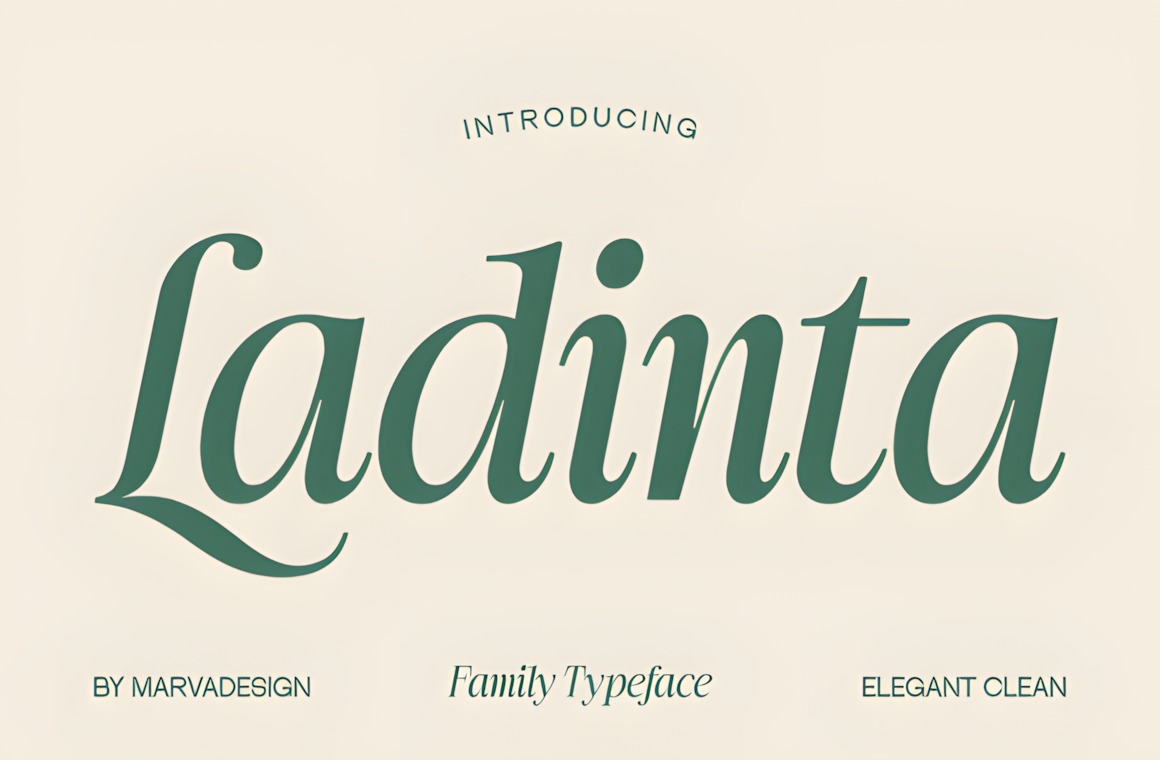
Choosing the perfect font can elevate your brand’s sophistication, whether for luxury packaging, wedding invitations, or elite branding. Below is a refined selection of exquisite typefaces that blend elegance with modern aesthetics.
1. Ladinta (Elegant Serif)
A delicate serif with soft curves and subtle contrast, Ladinta brings a refined, feminine touch to wedding stationery and high-end beauty branding. Its flowing letterforms exude timeless grace.
2. Sermo (Modern Calligraphy)
With its fluid, handcrafted strokes, Sermo adds a personal, artistic flair to luxury invitations and bespoke branding. Perfect for romantic designs that demand a human touch.
3. Cufatte (Classic Serif with Edge)
A sophisticated serif with sharp details and slight vintage inspiration, Cufatte works beautifully for editorial layouts, upscale logos, and refined packaging.
4. Sofila (Minimalist Sans-Serif)
Clean, geometric, and effortlessly chic, Sofila delivers modern luxury with its thin strokes and balanced proportions — ideal for contemporary fashion brands and minimalist branding.
5. Acollia (Stylish Script)
A dynamic, high-contrast script, Acollia combines elegance with energy, making it perfect for luxury fashion labels, perfume branding, and bold wedding monograms.
6. Goodies (Playful Elegance)
A whimsical yet refined display font, Goodies blends sophistication with a touch of charm — great for boutique branding, upscale event collateral, and creative packaging.
7. Convo (Contemporary Serif)
A fresh take on classic serifs, Convo features sleek lines and subtle curves, making it versatile for premium magazines, high-end cosmetics, and corporate luxury branding.
8. Onesta Vigano (Bold & Stylish Sans)
Confident and polished, Onesta Vigano offers a strong presence with refined details, perfect for luxury tech brands, modern logos, and sleek editorial headlines.
9. Niagara (Art Deco-Inspired Display)
With its dramatic strokes and vintage glamour, Niagara evokes the opulence of the Art Deco era — ideal for luxury hotels, high-end jewelry branding, and exclusive event invitations.
10. Semiflora (Romantic Floral Script)
A breathtaking fusion of calligraphy and floral embellishments, Semiflora is tailor-made for wedding designs, haute couture branding, and anything requiring dreamy sophistication.
Final Thoughts
Each of these fonts carries a unique personality while maintaining an air of exclusivity. Whether you’re crafting wedding invitations, designing a luxury brand identity, or curating high-end packaging, these typefaces ensure your project radiates elegance and prestige.